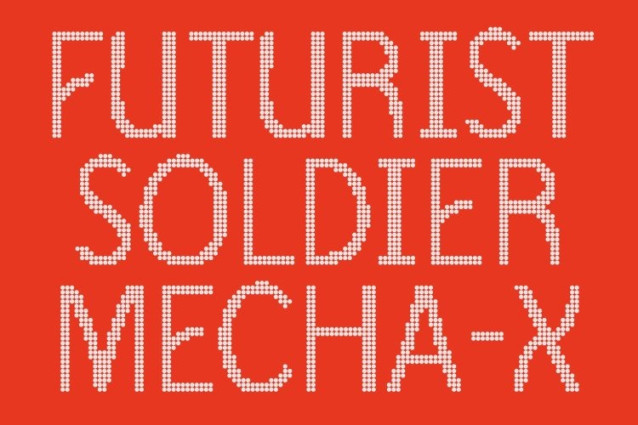
CS Vickie Disco Font
S Vickie Disco – Clean & Friendly Sans Serif with Sparkling Disco Charm
Warm Modern Style with Disco Dot Personality
This modern sans serif keeps its clean and welcoming character while transforming into a lively disco dot version. The soft geometric shapes are enhanced with playful dotted texture, giving the font a cheerful glow that feels energetic, friendly, and full of life.
Friendly Shapes with Playful Shine
Smooth curves and balanced proportions ensure clarity and approachability, while the disco texture introduces sparkle and rhythm. The result is a font that feels modern and professional yet fun and expressive perfect for designs that want to feel joyful and engaging.
Clean Readability with Expressive Energy
The simple sans serif structure guarantees legibility across sizes, making it suitable for both headlines and short text. The dotted style adds personality without sacrificing clarity, creating a harmonious mix of usability and visual excitement.